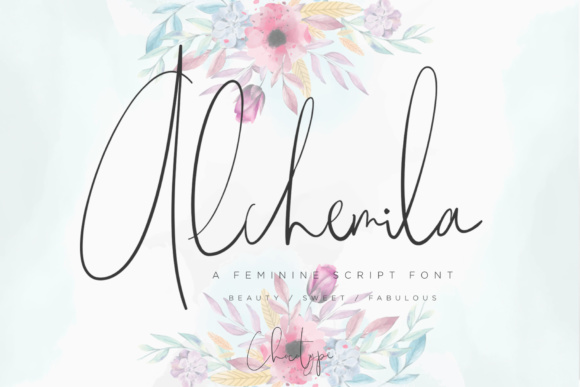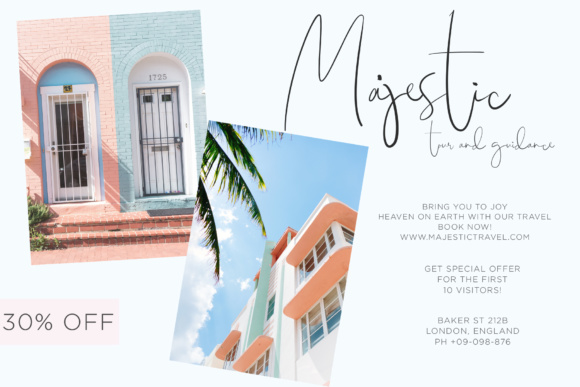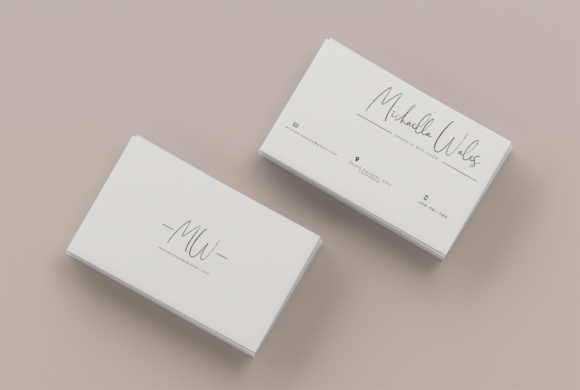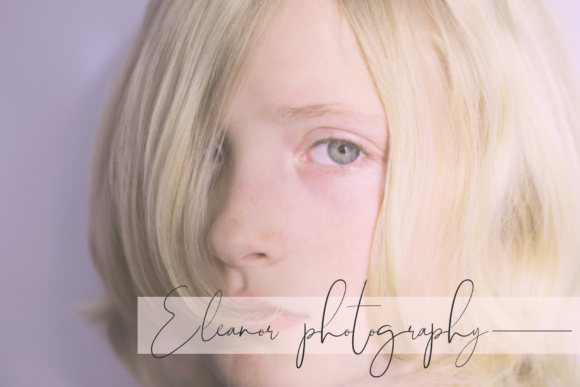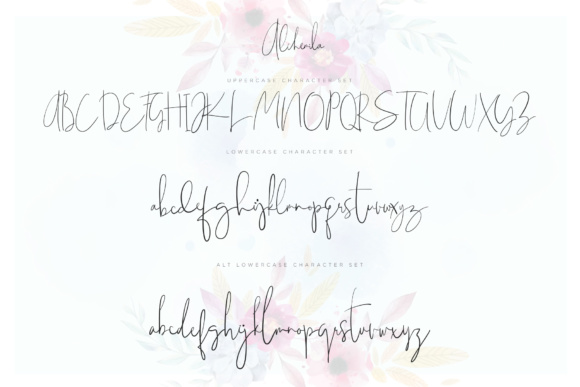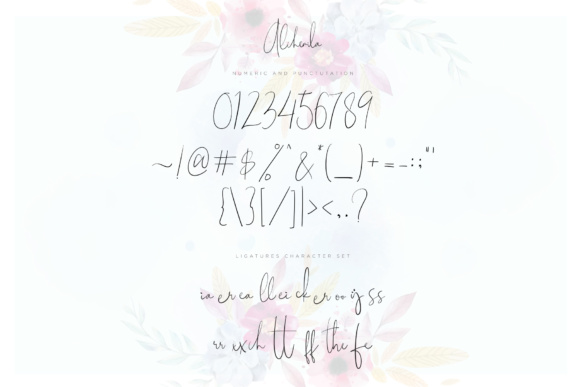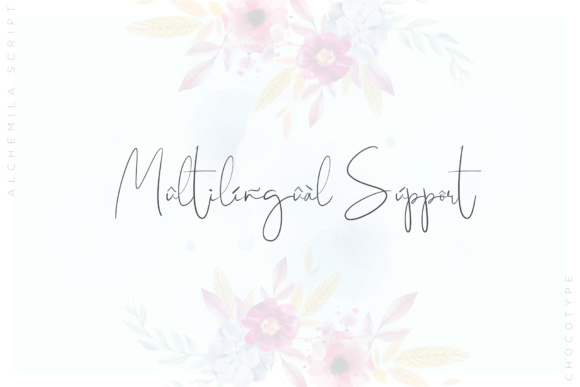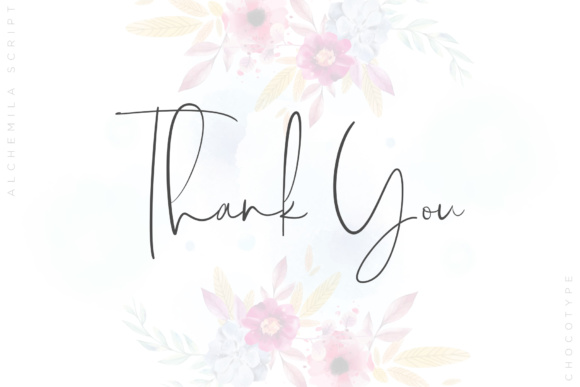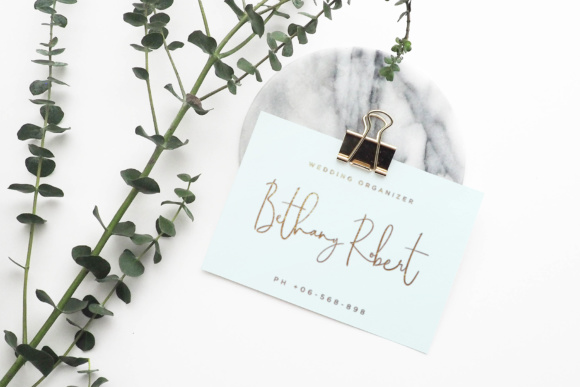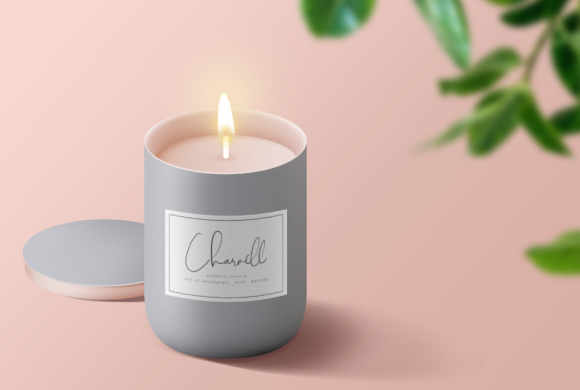
Alchemila Font
About Alchemila Font
Slip into something more sophisticated with “Alchemila” script.
Alchemila has a realistic hand-lettered style, perfect for use in feminine and editorially oriented designs. Alchemila works best as a header or as the focal point of your creative work!